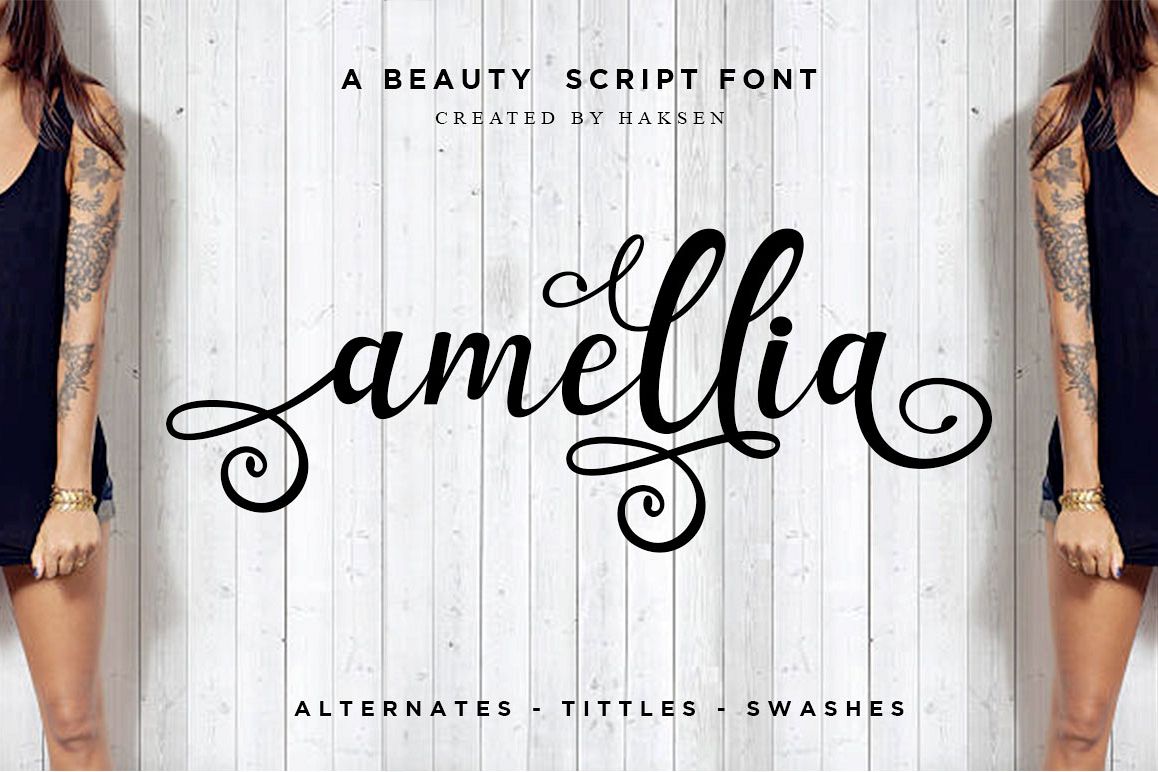
Amellia Beauty Script
I just released my new font with the name "Amellia"
"Amellia" is one of beauty script font with many alternate fonts.
As You can see in the preview. You will make many of version in every letters.